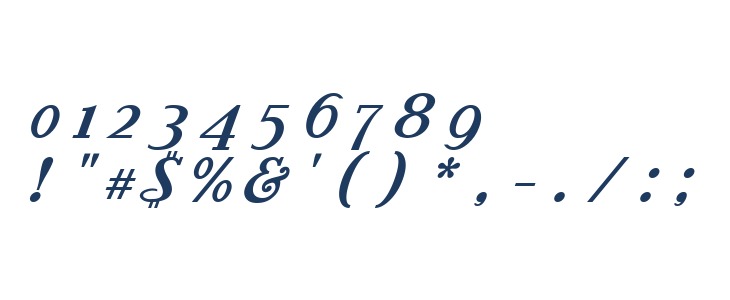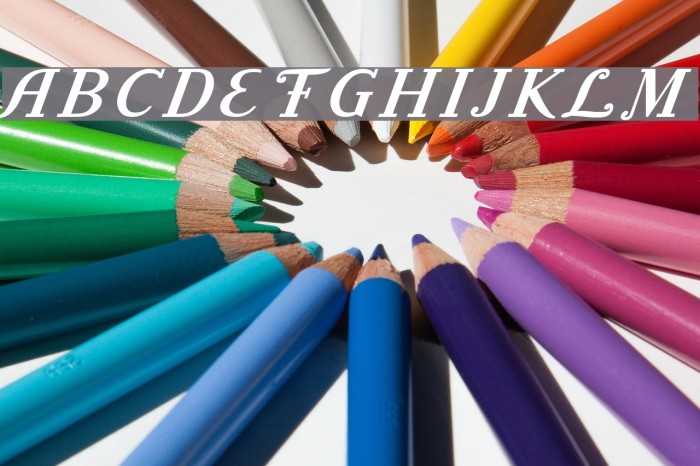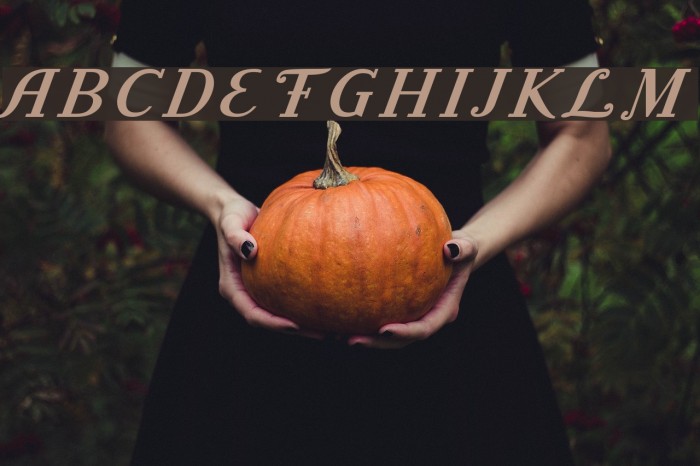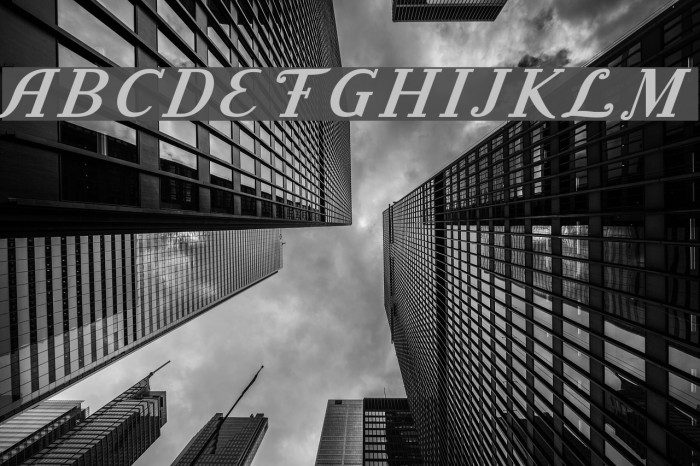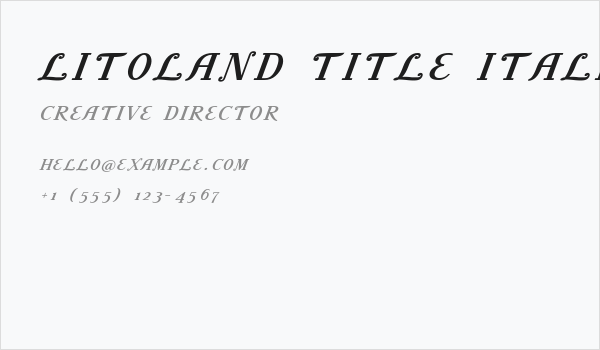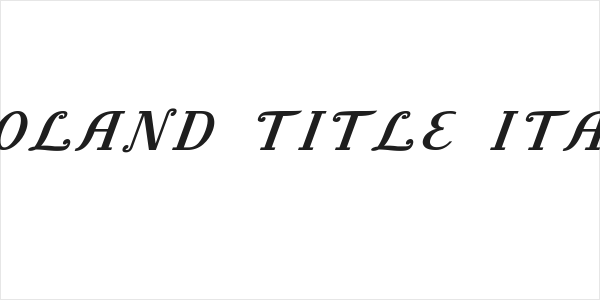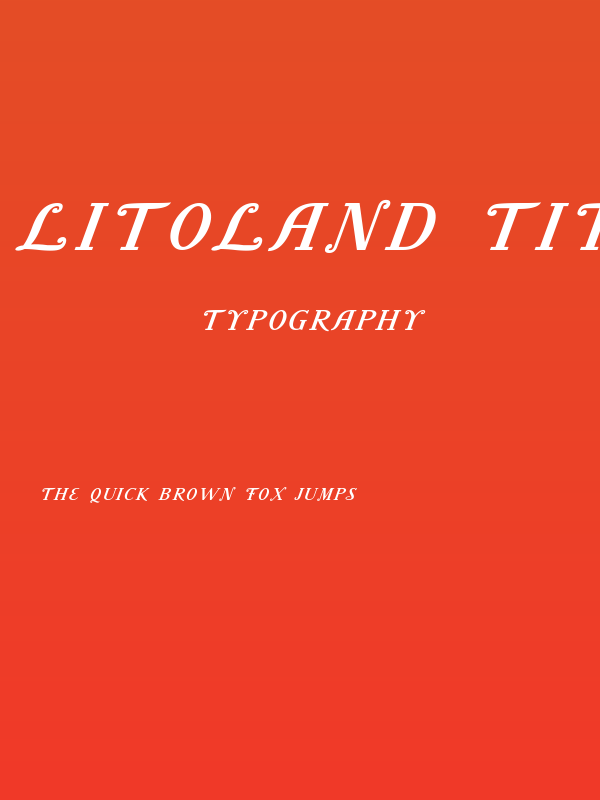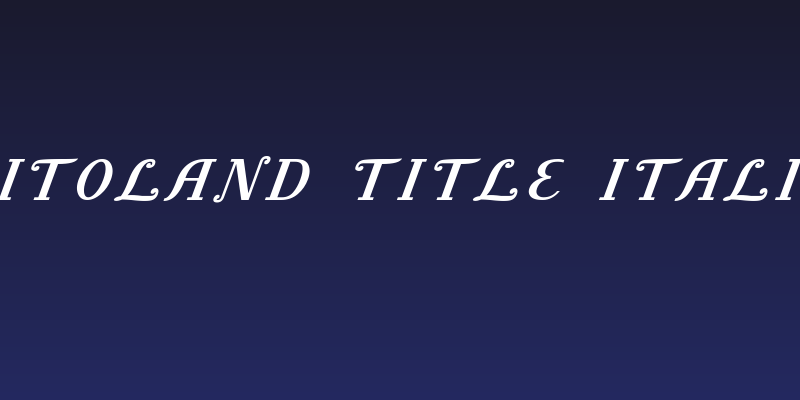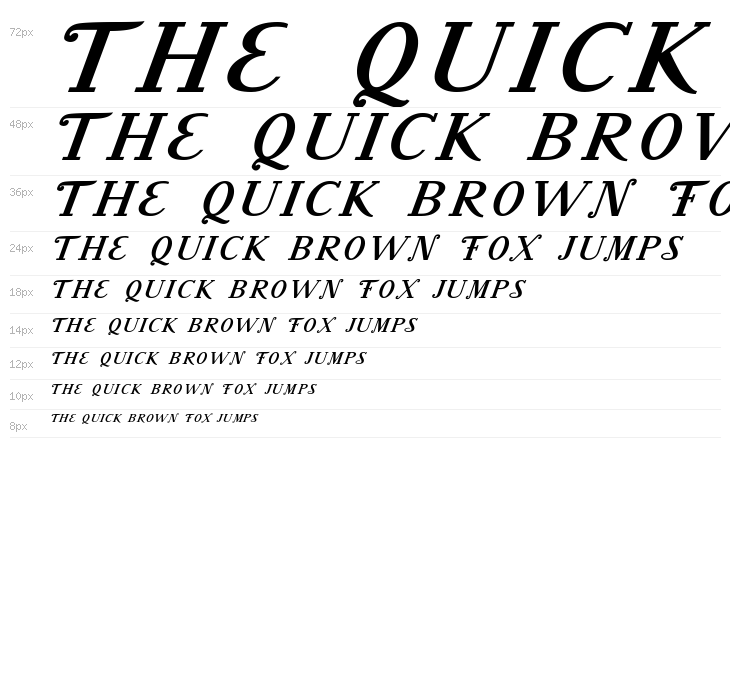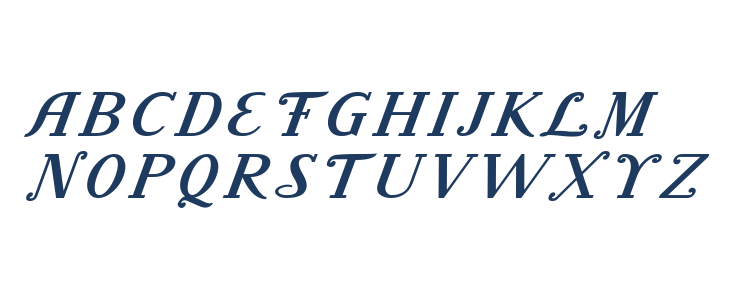
Litoland Title Italic Font
Litoland Title Italic Description
This font features an elegant and flowing italic style, characterized by its smooth curves and distinctive slant. The uppercase letters exhibit a classic serif design with a slight flourish, adding a touch of sophistication. The lowercase letters maintain a consistent style, complementing the uppercase with their graceful curves. Numbers are clear and legible, following the same italicized form. Special characters are well-integrated, ensuring versatility in various design contexts. The overall appearance is refined, making it suitable for formal and decorative applications.